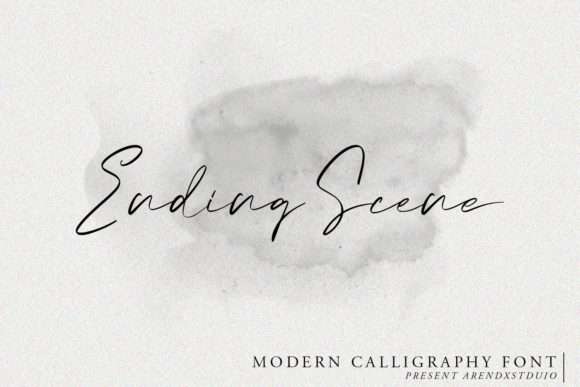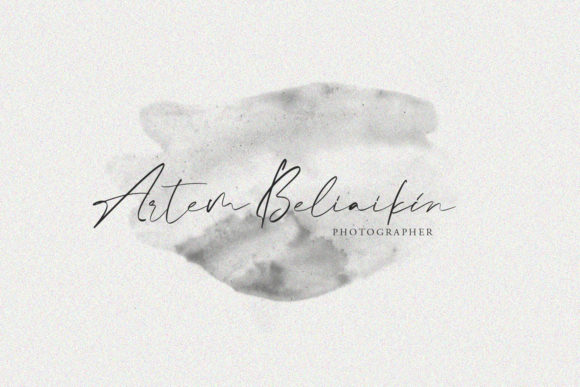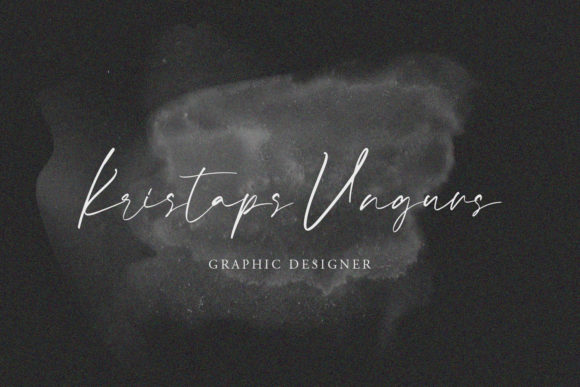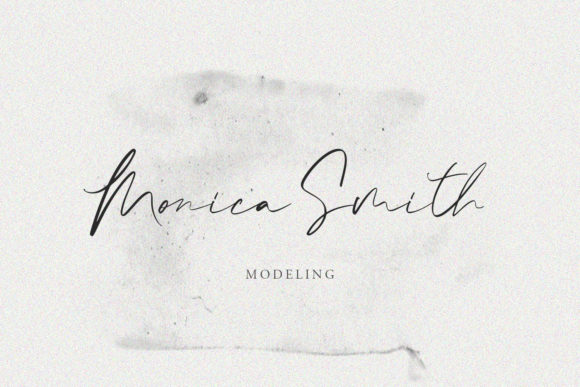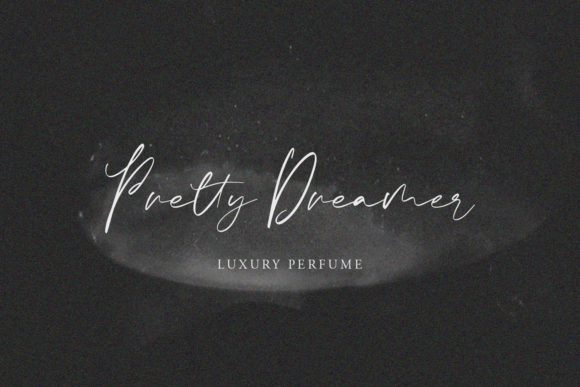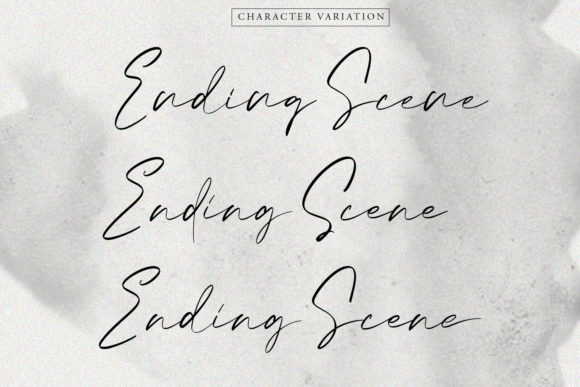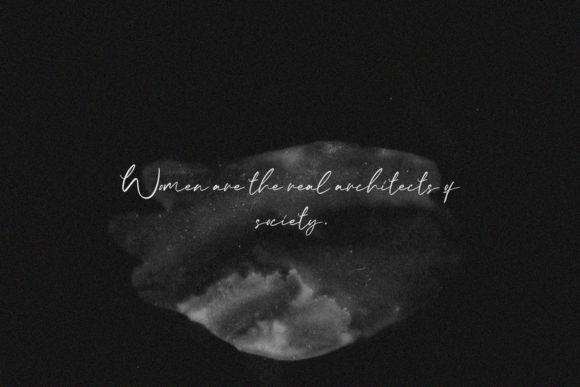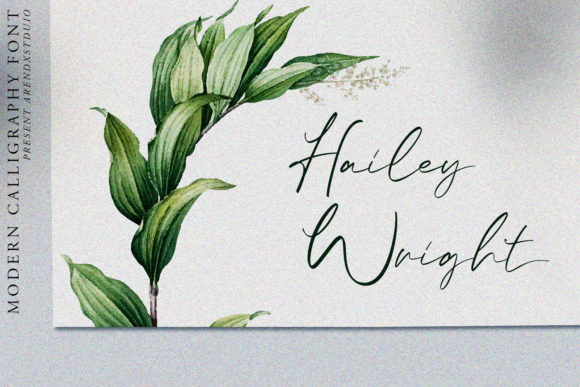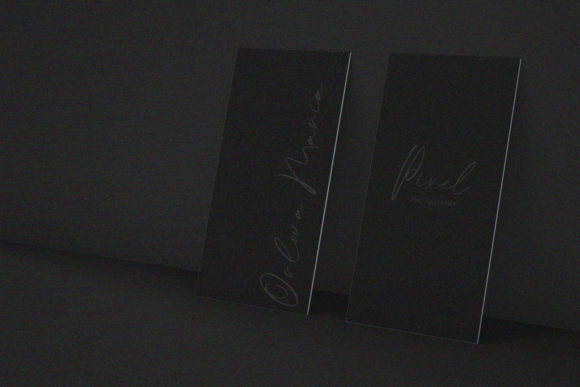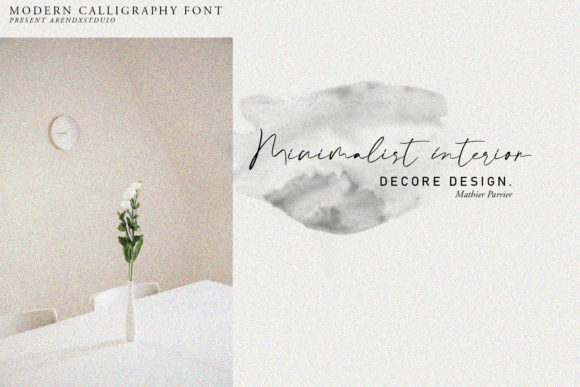
Ending Scene Font
Ending Scene is a magical handwritten font carefully created with a touch of elegance. This font is the perfect fit for making original and outstanding designs.